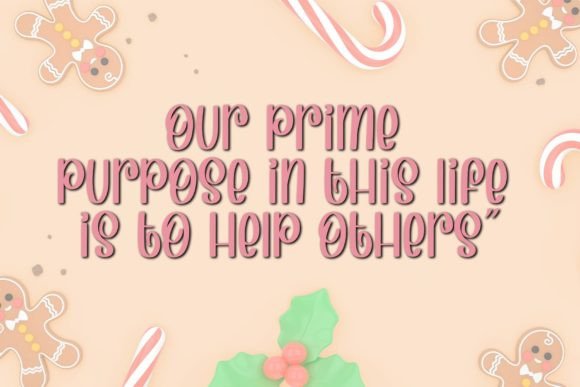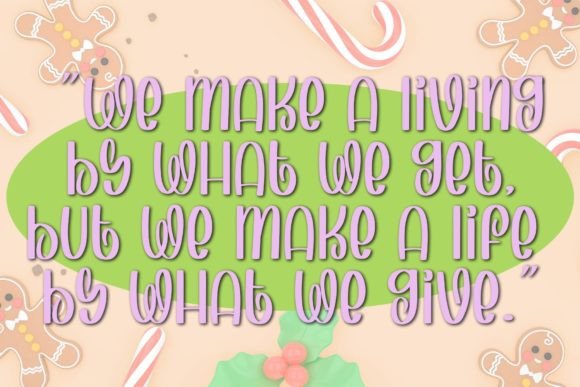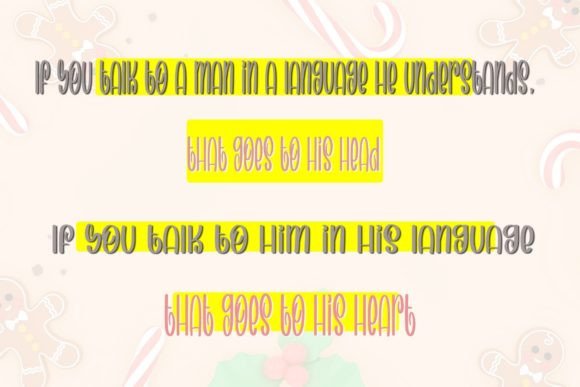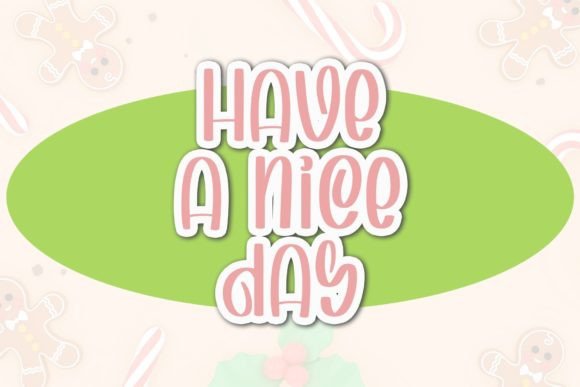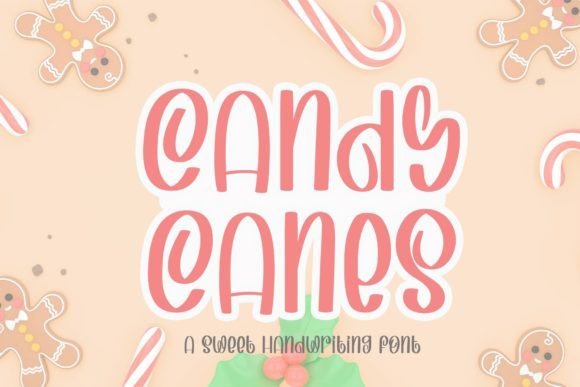
Candy Canes Font: Elevate Your Designs with a Touch of Timeless Elegance
In the world of typography, few fonts capture the essence of classic calligraphy while infusing it with a modern twist as effectively as the Candy Canes font. This stylish handwritten font is not just a typeface; it’s an experience that brings a contemporary atmosphere and impeccable form to your designs. Inspired by the timeless elegance of classic calligraphy, Candy Canes font is poised to become the go-to choice for designers and crafters looking to add a touch of sophistication and charm to their projects.
The Essence of Candy Canes Font
At its core, the Candy Canes font is a balanced and varied typeface that has been meticulously designed to enhance the beauty of your projects. Whether you’re working on a branding campaign, a packaging design, or a digital project, this font adapts seamlessly, bringing a level of refinement and elegance that’s hard to achieve with standard typefaces. The inspiration drawn from classic calligraphy is evident in its fluid strokes and graceful letterforms, which exude a sense of luxury and high-end quality.
Key Features of Candy Canes Font
- Contemporary yet Classic: The Candy Canes font strikes the perfect balance between modern design and traditional calligraphy. Its contemporary atmosphere makes it versatile for a wide range of projects, from digital media to print.
- Handwritten with Precision: Each letter in the Candy Canes font is crafted with precision, offering a natural flow that mimics handwriting. This gives your designs a personal touch that’s both inviting and engaging.
- Variety and Versatility: The font comes with a range of variations, allowing you to experiment with different styles and tones. This versatility makes it an excellent choice for designers who like to push the boundaries of creativity.
- Impeccable Form: The design of Candy Canes font focuses on impeccable form, ensuring that every letter and character is not only aesthetically pleasing but also highly legible.
Who Can Benefit from Candy Canes Font?
The Candy Canes font is a valuable asset for a wide range of professionals and enthusiasts. Here are a few groups that can particularly benefit from this elegant typeface:
- Graphic Designers: Looking to add a touch of elegance and sophistication to their designs, graphic designers will find Candy Canes font to be an indispensable tool in their arsenal.
- Crafters: Whether you’re into scrapbooking, card making, or any form of crafting that involves lettering, this font can elevate your projects to a new level of creativity and appeal.
- Digital Artists and Illustrators: For those working in digital media, Candy Canes font offers a unique way to incorporate text into illustrations and digital art, adding depth and character.
- Marketers and Branding Specialists: In the world of branding, first impressions matter. The Candy Canes font can help create a luxurious and memorable brand identity that stands out from the competition.
How to Use Candy Canes Font Effectively
To make the most of the Candy Canes font, consider the following tips:
- Mix and Match: Don’t be afraid to experiment with different sizes, colors, and styles within the font family to create visual interest.
- Pair with Simplicity: The elegance of Candy Canes font can be let to shine by pairing it with simpler design elements. This contrast can make your design more compelling.
- Consider the Context: Think about where and how your design will be used. The Candy Canes font is versatile, but its impact can vary depending on the medium, from digital screens to print.
The Candy Canes font is more than just a typeface; it’s a design statement that speaks of elegance, creativity, and a deep understanding of what makes a design memorable. With its roots in timeless classic calligraphy and a strong contemporary appeal, it’s set to become a favorite among designers and crafters alike. Whether you’re looking to add a touch of sophistication to your branding, create stunning digital art, or simply elevate your crafting projects, Candy Canes font is an excellent choice that promises to deliver results that are both beautiful and effective.